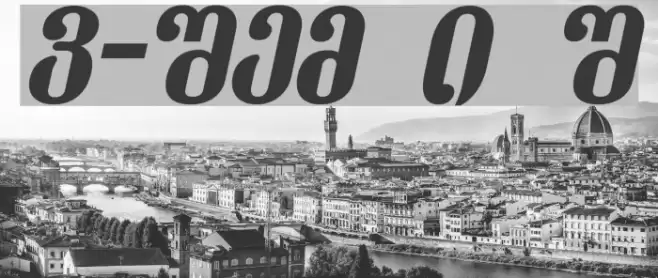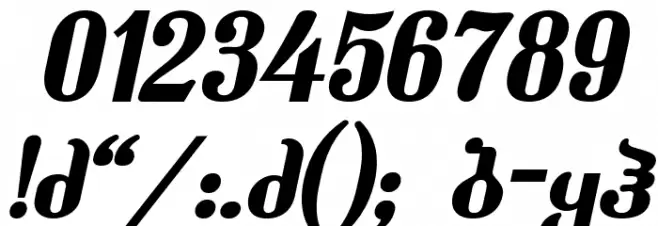
Dumbadze-ITV Bold Italic Font
Dumbadze-ITV Bold Italic Description
This font exhibits a bold and italicized style with a strong presence, characterized by its thick strokes and dynamic slant. The characters are designed with a decorative flair, featuring unique curves and flourishes that add a sense of movement and elegance. The numbers and special characters maintain the same boldness and style, ensuring consistency throughout. This font is particularly eye-catching, making it suitable for projects that require a strong visual impact.